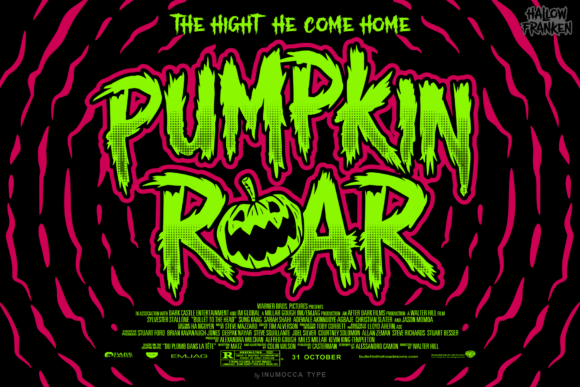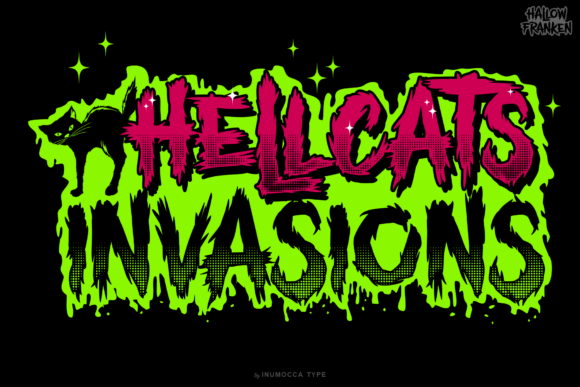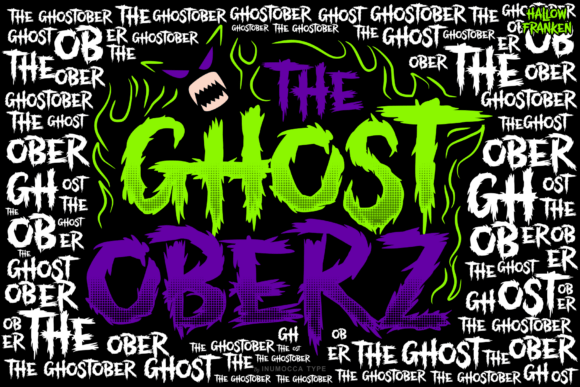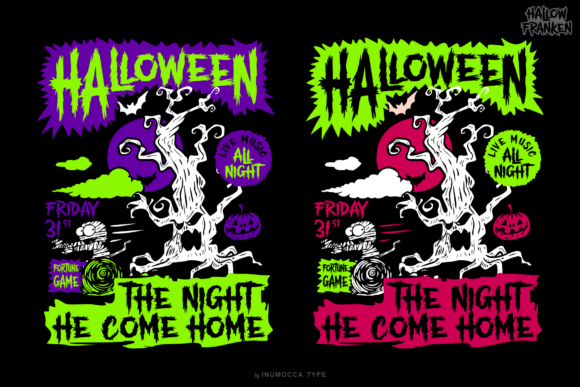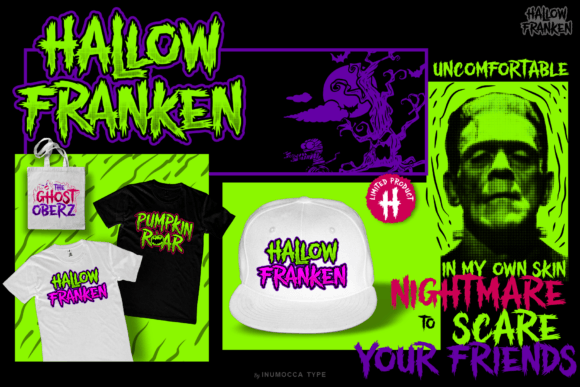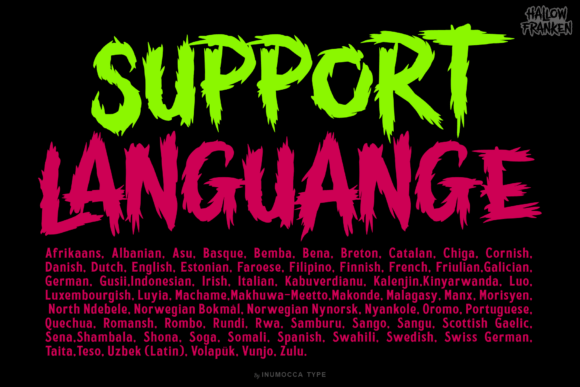
Introduction to Hallow Franken Font
As the sun sets on a crisp autumn evening, the air is filled with the excitement of Halloween preparations. The sound of children giggling and the smell of pumpkin spice waft through the air, signaling the start of a spooky yet magical season. And what better way to capture the essence of this eerie-yet-whimsical atmosphere than with the perfect font?
Enter the Hallow Franken Font, a playful and quirky decorative typeface designed specifically for Halloween-themed projects. This unique font is a treasure trove of creative possibilities, waiting to be unleashed on your next design project. With its furry monster hair aspect, each character comes alive with an eerie yet fun appearance, guaranteed to evoke a spooky yet inviting look.
Key Features of Hallow Franken Font
- Hallow Franken Font is a unique design resource ideal for creative projects, offering a high-quality and spooky aesthetic.
- This font features a transparent background, making it perfect for use on various backgrounds and design elements.
- With 250+ glyphs, this font is suitable for a wide range of creative projects, from typography to graphic design.
- The font’s unique characteristics include a gothic-inspired design, perfect for adding a touch of Halloween spirit to your creative project.
Honest Review: Hallow Franken Font
As a designer, I’m always on the lookout for unique and high-quality design resources to enhance my creative projects. The Hallow Franken Font caught my eye with its eerie, gothic vibe, making it perfect for Halloween-themed designs. ✨
- High-quality font with detailed, intricate designs
- Translucent background option for a spooky effect
- ⚠️ Limited character set, which may not be suitable for longer texts
- ⚠️ Not ideal for designs requiring a clear, legible font
Overall, I’m impressed with the Hallow Franken Font’s unique design and high-quality execution. While it may have some limitations, it’s a fantastic addition to any designer’s toolkit, especially for creative projects with a spooky twist.
Tips for Getting the Most Out of Hallow Franken Font
To get the most out of Hallow Franken Font, use it in bold and creative ways. Experiment with different font sizes, colors, and arrangements to create a unique and eye-catching design. You can also pair the font with other design resources to create a cohesive and professional look.
Hallow Franken Font is commonly used in creative projects such as horror movie posters, Halloween decorations, and spooky-themed social media graphics. Its unique and eerie feel makes it an excellent choice for designers working on projects with a dark and mysterious theme.